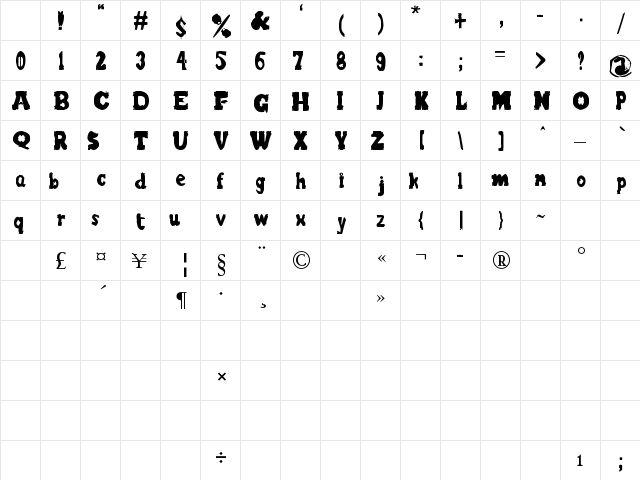
Complete blurrr letters Regular glyph index. Displaying only characters natively supported by blurrr letters Regular font.
blurrr letters is a composed and adaptable typeface that performs quietly and consistently across a wide range of design contexts.